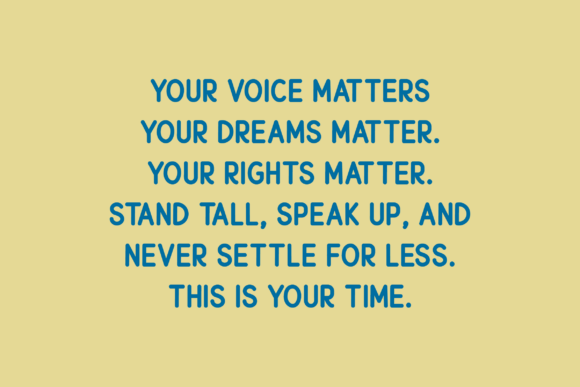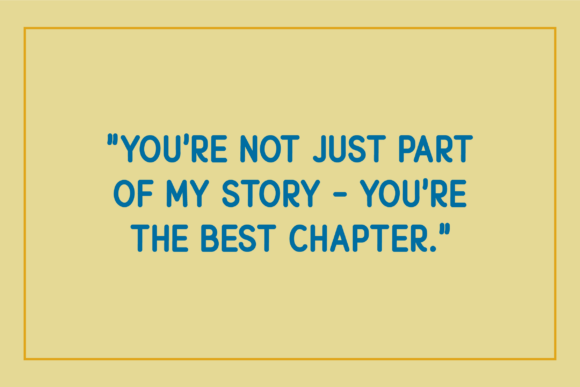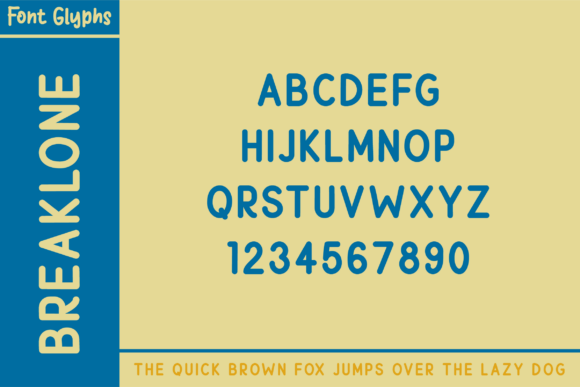
The Moment of Inspiration: Unlocking Your Creativity with the Breaklone Font
Have you ever found yourself in a creative rut, scrolling through social media for hours, searching for the perfect font to give your project that extra oomph? I know I have! That’s exactly what happened to me when I stumbled upon the Breaklone Font. This quirky all caps font made up of capital letters A-Z, numbers 0-9, accented characters, and punctuation is the perfect solution for designers looking to add some personality to their work.
The Breaklone Font is ideal for crafting, social media graphics, t-shirts, decals, cards, invitations, and so much more. Its simple and smooth design makes it a valuable addition to any designer’s toolkit. Whether you’re a seasoned pro or a crafty enthusiast, the Breaklone Font is sure to inspire your next creative project.
Breaklone Font Key Features
- Font Family: Breaklone Font is a sans-serif font family with 12 styles, including light, regular, bold, and italic.
- Unique Characteristics: Breaklone Font features a distinctive geometric design with clean lines and a modern aesthetic, making it suitable for digital and print applications.
Breaklone Font Review
Overall, I think Breaklone Font is a great addition to any designer’s toolkit. ✨ The bold lines and striking character shapes make it perfect for creating eye-catching headlines and titles. The font is also highly versatile, working well in both digital and print formats. ✨ The font’s unique style makes it ideal for creative industries such as fashion, art, and music.
One of the standout features of Breaklone Font is its robust character set. ✨ It includes a wide range of glyphs, ligatures, and ornaments, making it perfect for designers who want to add a touch of elegance and sophistication to their designs. The font also supports a variety of languages, including Latin, Cyrillic, and Greek.
While Breaklone Font is a solid choice for most designers, there are a few limitations to consider:
- ⚠️ The font may not be the best choice for body text, as it can be quite dense and difficult to read in large quantities.
- ⚠️ The font’s bold lines can sometimes make it difficult to achieve fine details, especially in smaller font sizes.
Overall, I would highly recommend Breaklone Font to designers who are looking for a unique and eye-catching font for their projects. While it may have some limitations, the benefits far outweigh the drawbacks.
To get the most out of Breaklone, use it for headings and titles to create a bold and modern look. Pair it with a clean sans-serif font for body text to achieve a striking contrast.
Breaklone is ideal for creating dynamic headlines and titles in your designs. Use it to add a touch of sophistication and elegance to your work.
Breaklone is perfect for creating engaging presentations and documents. Use it to add a professional touch and make your content stand out.
Breaklone is ideal for:
- Dynamic headlines
- Presentations and documents
- Modern and sleek designs